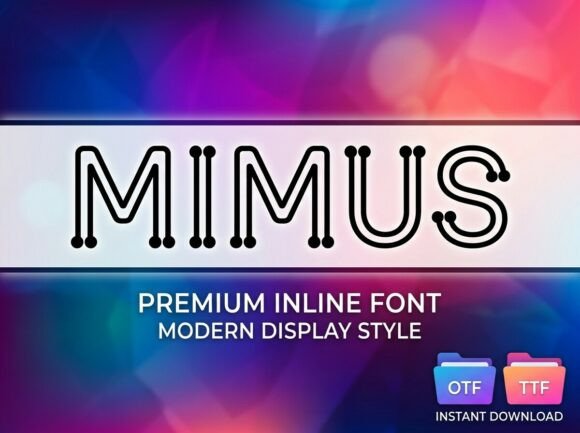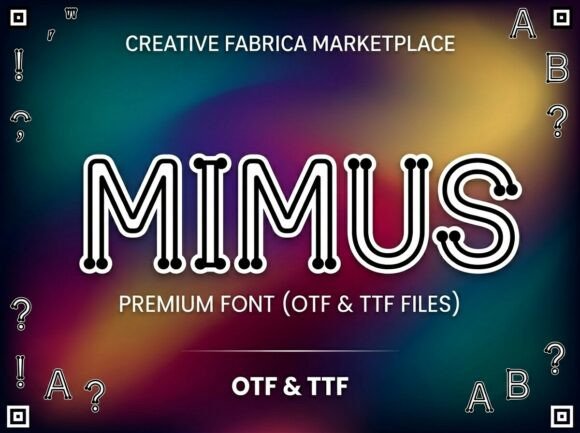
Introduction to Mimus Font
As a designer, there’s nothing quite like the thrill of seeing a project come to life. The moment when your vision finally takes shape, and you know you’ve created something truly special. For me, that moment often starts with the right font. And that’s where the Mimus Font comes in – a stunning decorative display font designed to be the center of attention.
This font is more than just a design element – it’s a statement piece that can elevate your creative project from ordinary to extraordinary. With its unique artistic elements and strong visual personality, the Mimus Font is perfect for designers who want to push the boundaries of traditional typography. Whether you’re working on a high-end brand, a creative packaging project, or a bold headline, this font is sure to make a lasting impression.
Key Features of Mimus Font
- Features a unique, stylish design that sets it apart from other fonts, making it a great choice for designers seeking a distinctive look.
- Supports a wide range of languages, including Latin, Cyrillic, and Greek alphabets, making it a versatile design resource.
- Perfect for use in graphic design, digital art, and other creative projects that require a high level of visual sophistication.
Honest Review: Mimus Font
I recently came across the Mimus Font, a design resource that I’m excited to share with fellow designers. The Mimus Font is a high-quality font that offers a unique and creative touch to any project.
Some of the notable features of the Mimus Font include:
- Transparent background, making it easy to overlay on images or other design elements.
- High-quality design, with crisp and clear typography.
⚠️ One limitation I noticed is that the font is not suitable for body text, as it can be quite difficult to read in large quantities. It’s best used for headings and titles.
Overall, I’m impressed with the Mimus Font and would definitely recommend it as a design resource for creative projects. Its unique style and high-quality design make it a valuable addition to any designer’s toolkit.
Common Use Cases for Mimus Font
The Mimus Font is perfect for a variety of creative projects, including logos, branding materials, and social media graphics. Its unique design and high-quality features make it an ideal choice for designers looking to add a touch of sophistication to their work.